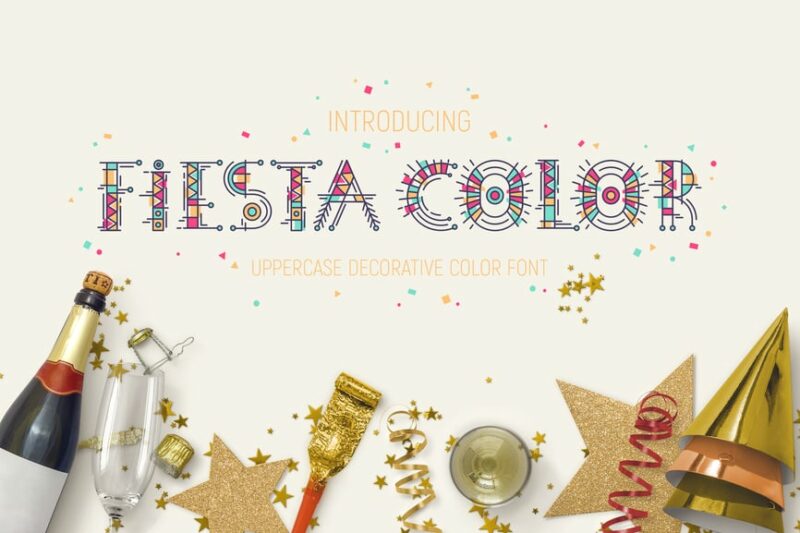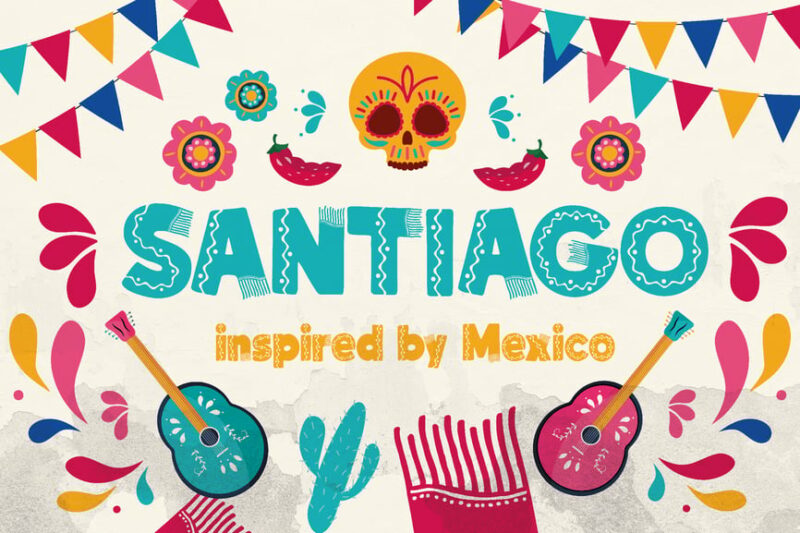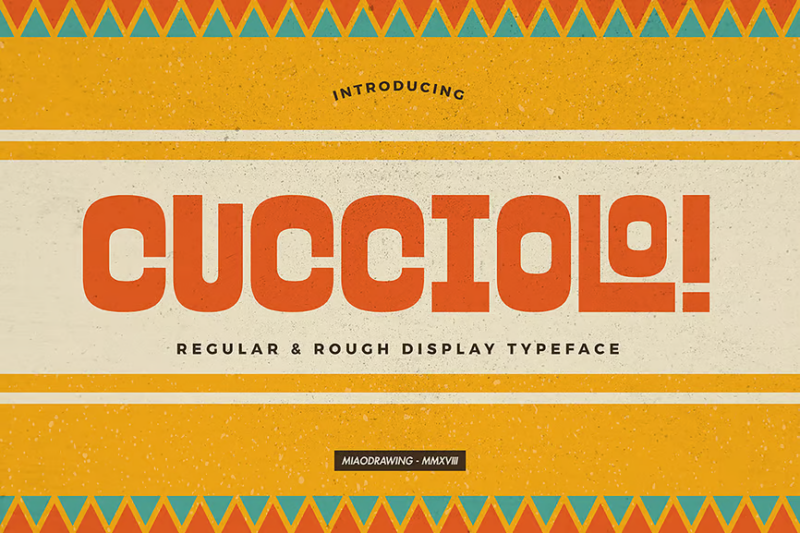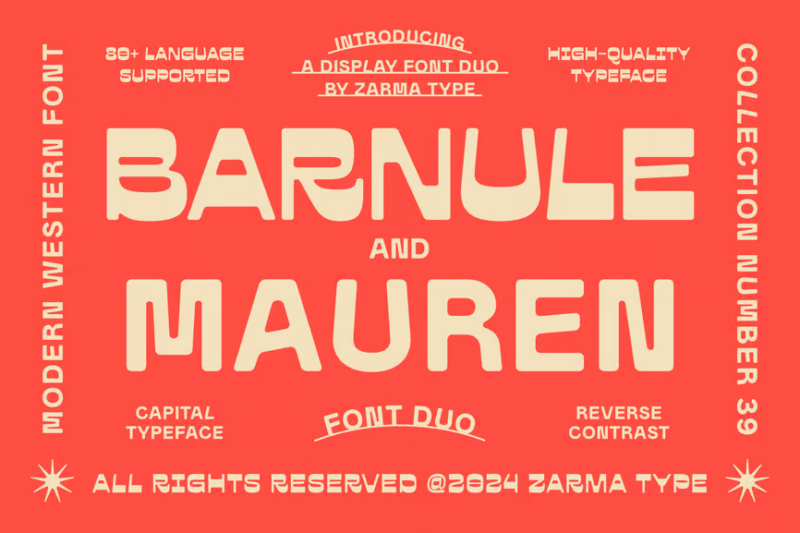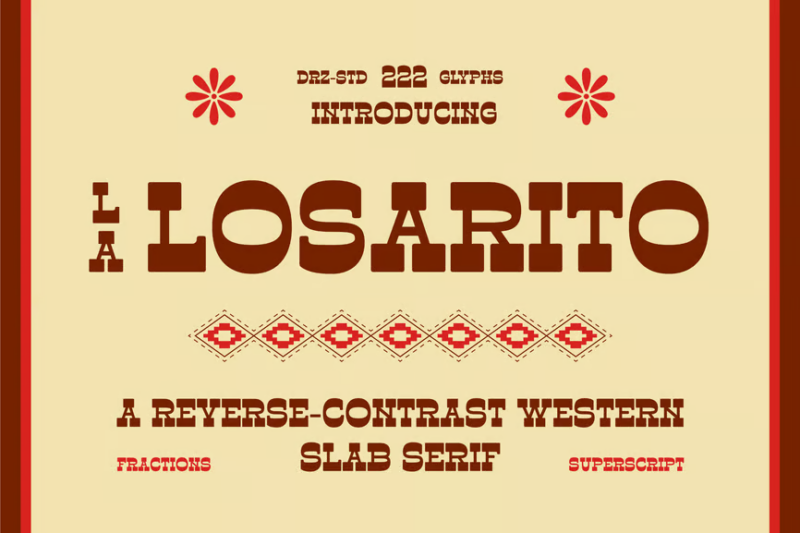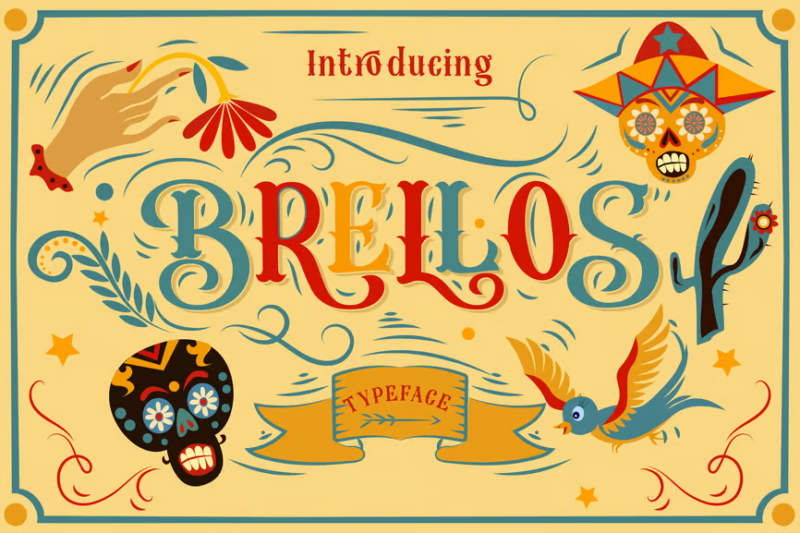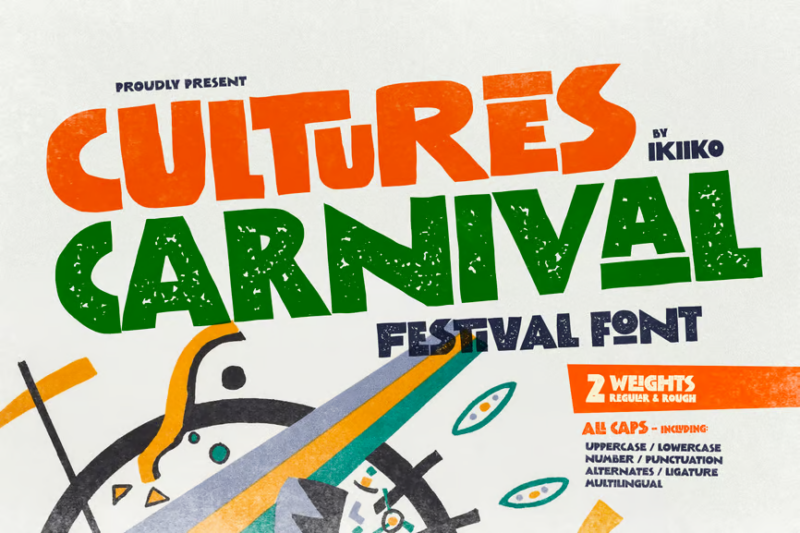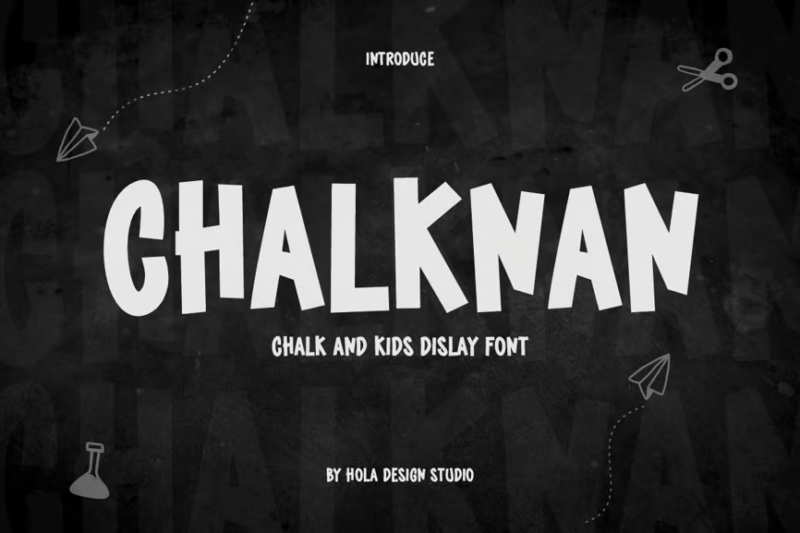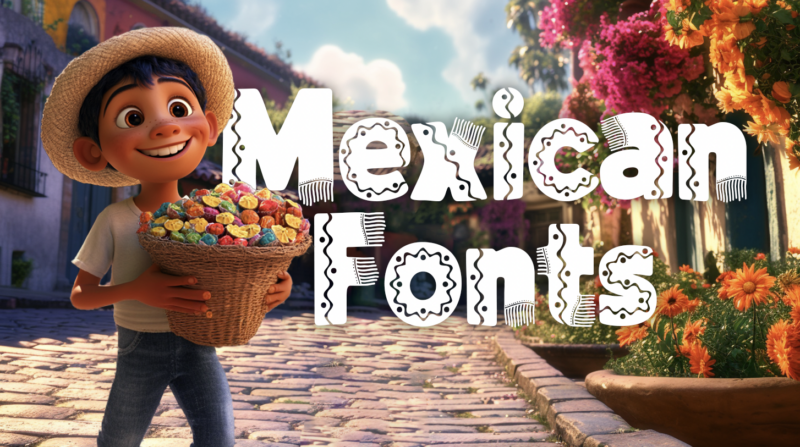
When it comes to capturing the rich, colorful, fun, vibrant spirit of Mexican culture, the right typography can transport your designs from mundane to magnificently ‘bueno’.
Mexican fonts blend historical richness with contemporary flair, drawing inspiration from hand-painted signage, folk art traditions, and the country’s diverse cultural heritage. Whether you’re designing for Cinco de Mayo, Day of the Dead celebrations, or a Mexican restaurant rebrand, these fonts can add that touch of authentic character your project needs.
In this deep dive, I’ll be exploring the best Mexican-inspired fonts to elevate your designs in 2026. We’ll cover:
- What makes a font distinctly “Mexican” in style
- The different categories of Mexican typography
- How to choose the perfect Mexican font for your project
- My top picks for Mexican fonts that capture authentic cultural vibes
- Answers to common questions about Mexican typography
Let’s jump right in and explore these vibrant typefaces!
The most fun Mexican fonts right now
I’ve compiled this list of the most fun and versatile Mexican-inspired fonts. Each brings its own unique flavor to your designs:
Santiago
Santiago is an authentic Mexican-inspired sans-serif typeface with decorative elements. Its design captures the essence of traditional Mexican typography while maintaining a modern, clean look. This font would be excellent for restaurant branding, food packaging, or any project that requires a genuine Mexican flavor with a contemporary twist.
Morucas
Morucas is a distinctive serif font that emulates the look of Mexican engraving. Its intricate details and bold strokes give it a vintage, handcrafted appearance. This typeface would be perfect for creating elegant, culturally-rich designs for display purposes, such as posters, invitations, or book covers with a Mexican theme.
Cucciolo Typeface
Cucciolo Typeface is a playful sans-serif font with a decorative flair inspired by Mexican design elements. Its unique characteristics include hand-drawn qualities and a touch of whimsy. This font would be ideal for children’s books, casual branding, or any project that requires a fun, approachable aesthetic with a subtle Mexican influence.
Viva La Fiesta Font Trio
Viva La Fiesta Font Trio is a versatile collection of friendly fonts inspired by Mexican culture. This set offers a range of styles from bold and festive to clean and modern, allowing for diverse typographic compositions. It’s perfect for creating cohesive designs for events, branding, or any project that requires a mix of fun and sophistication with a Mexican flair.
Fiesta Color Font
Fiesta Color Font is a vibrant and playful typeface that combines decorative elements with a serif base. It features colorful symbols and intricate details, making it perfect for festive designs and Mexican-themed projects. This font would be ideal for creating eye-catching headlines or logos that exude a lively, celebratory atmosphere.
Barnule & Mauren
Barnule & Mauren is a Western-inspired font duo that combines sans-serif styles with retro elements. This pairing offers a perfect balance of rugged charm and modern simplicity. Ideal for creating authentic Western-themed designs, these fonts would work well for branding, packaging, or editorial projects that aim to evoke a nostalgic yet contemporary feel.
La Losarito
La Losarito is a unique reverse contrast Western font with a serif style. Its unexpected thick horizontal strokes and thin verticals create a striking, attention-grabbing effect. This display typeface is perfect for headlines, posters, or any design that needs to make a bold statement while maintaining a Western or vintage aesthetic.
Luchador
Luchador is a powerful serif font with a vintage flavor, inspired by Mexican wrestling culture. Its bold, chunky letterforms exude strength and character. This typeface would be excellent for creating impactful headlines, logos, or any design that needs to convey a sense of power and nostalgia, particularly in sports or entertainment-related projects.
BRELLOS Typeface
BRELLOS Typeface is a decorative serif font with a focus on display and lettering applications. Its elegant curves and distinctive details give it a sophisticated, artisanal quality. This font would be ideal for creating luxurious branding, high-end product packaging, or any design that requires a touch of refined craftsmanship.
Tacunos
Tacunos is a quirky, decorative font inspired by Mexican taco culture. Its playful letterforms and unique characteristics make it stand out in any design. This font would be perfect for food-related branding, especially for Mexican restaurants or taco shops, as well as for creating fun, eye-catching headlines in casual contexts.
Remember that the best uses of Mexican typography go beyond surface aesthetics to engage meaningfully with the culture they reference. By understanding the historical and cultural context behind these letterforms, you can create designs that resonate with authentic Mexican character.